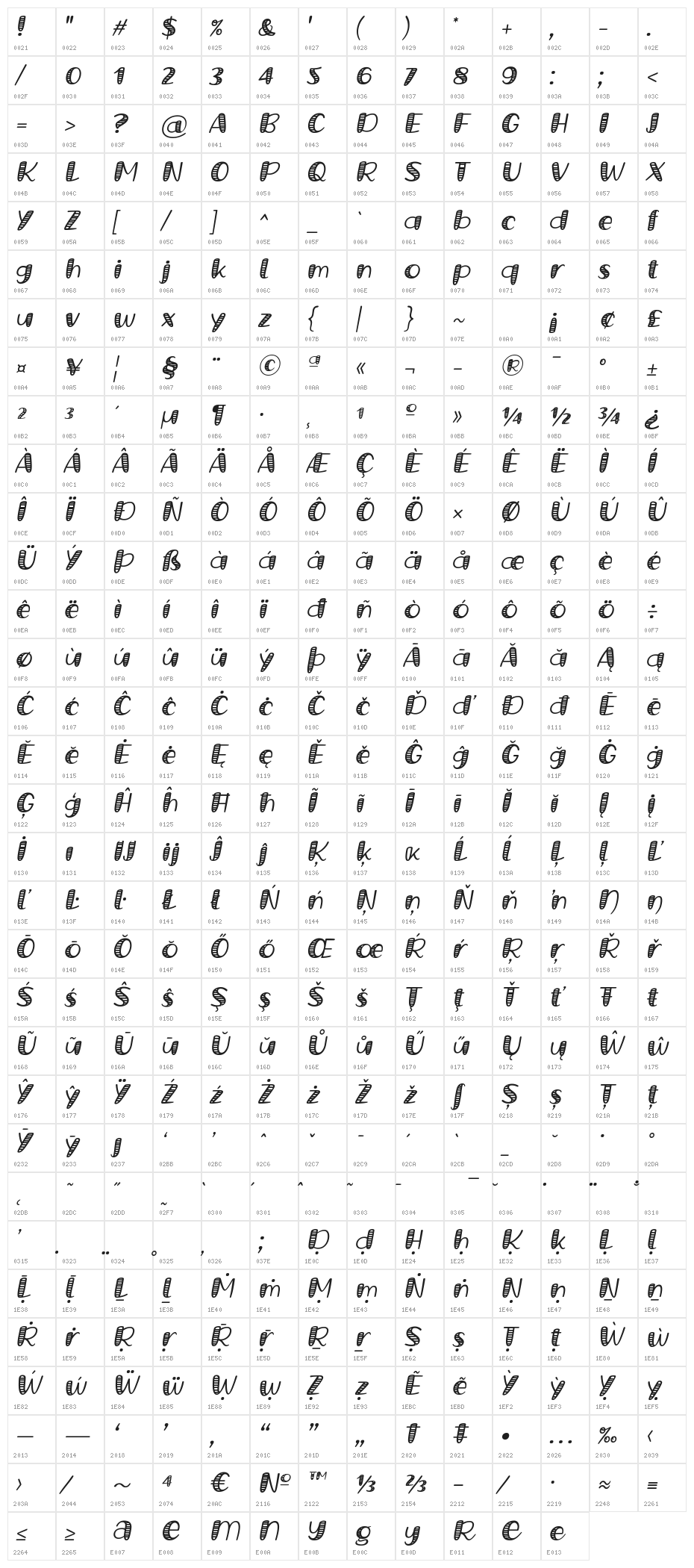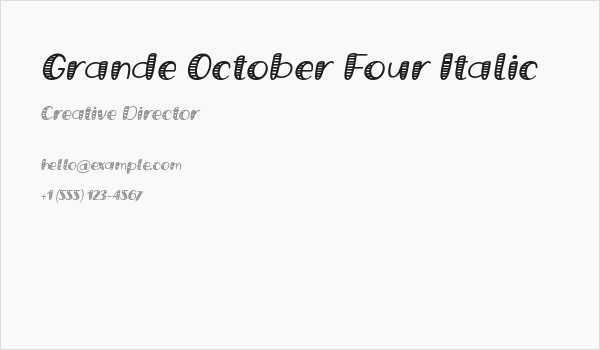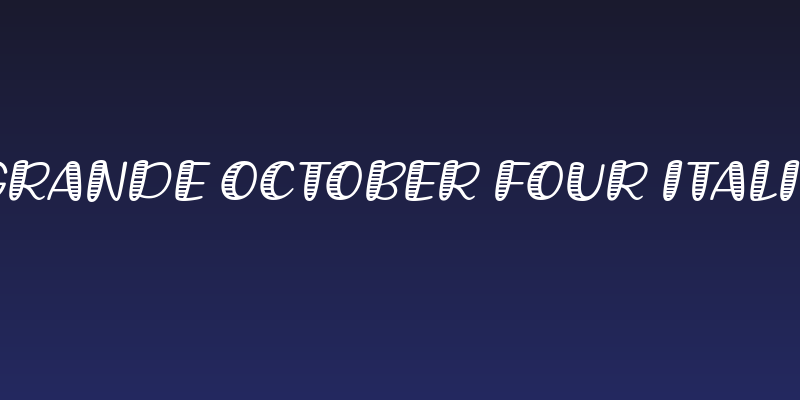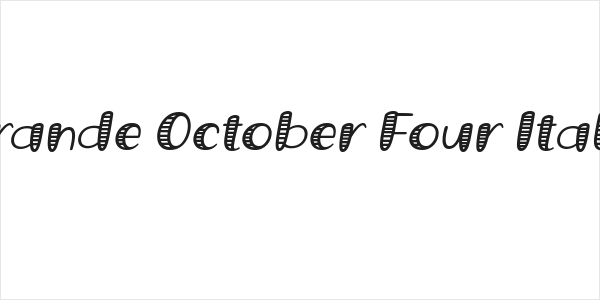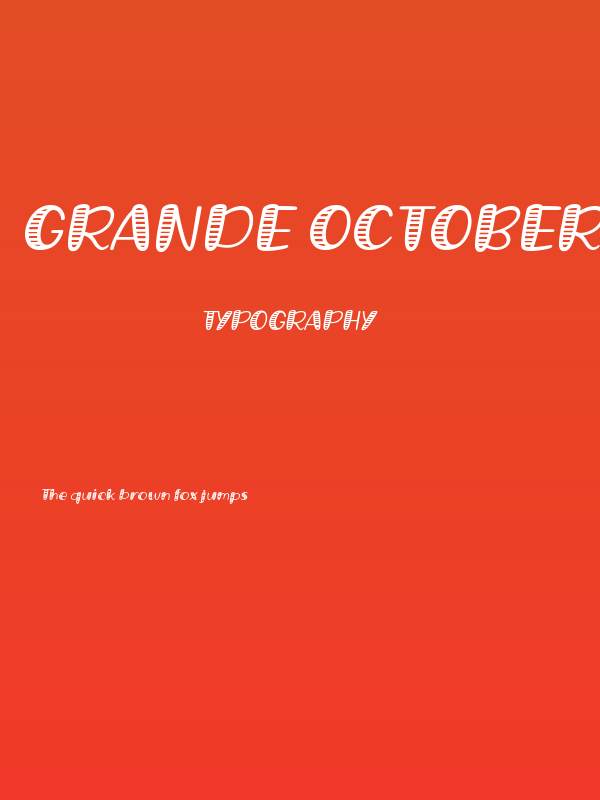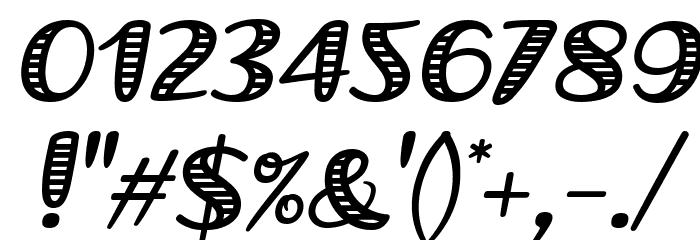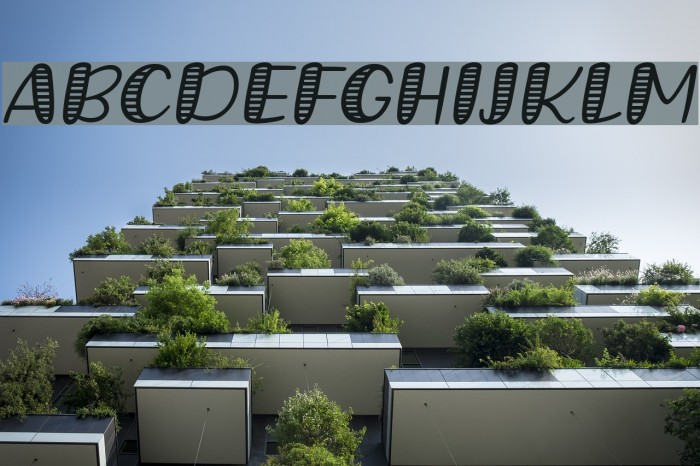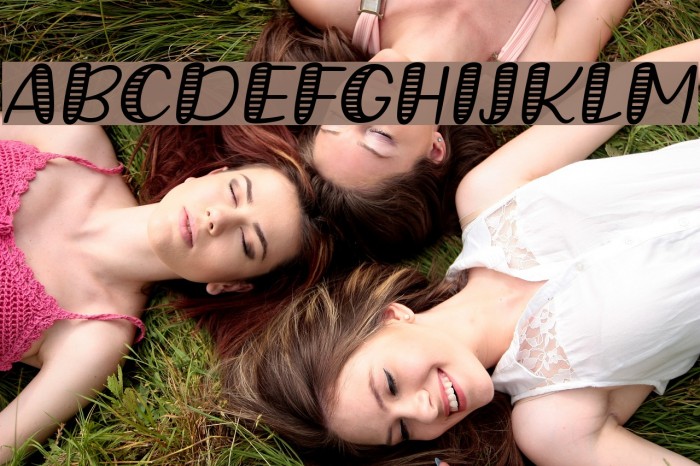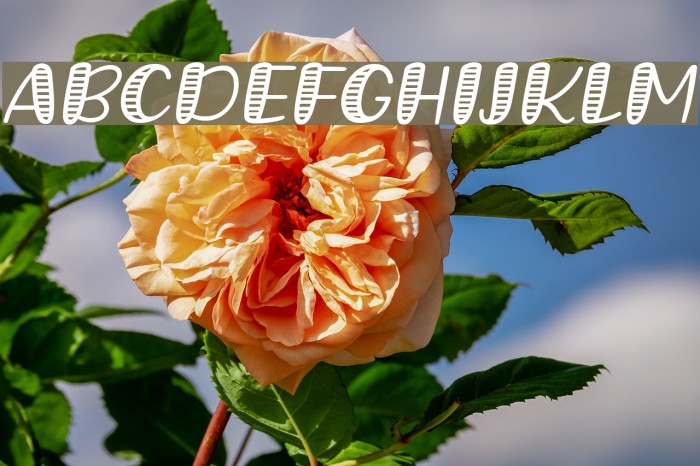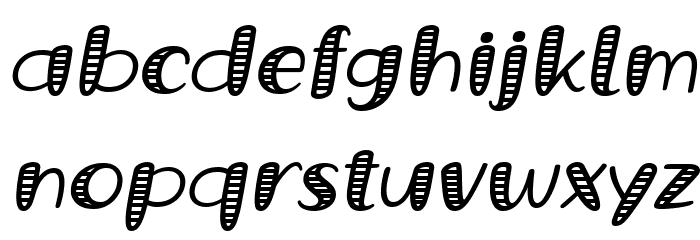
Grande October Four Italic Font
This font features a playful and dynamic style, characterized by its slanted, italicized form. Each character is adorned with a unique striped pattern that adds a sense of movement and energy. The letters are rounded and smooth, giving them a friendly and approachable appearance. The uppercase and lowercase letters maintain a consistent design, ensuring readability while adding a touch of whimsy. The numbers and special characters follow the same aesthetic, making the font versatile for various uses. Its distinct style makes it ideal for projects that require a fun and engaging visual element.